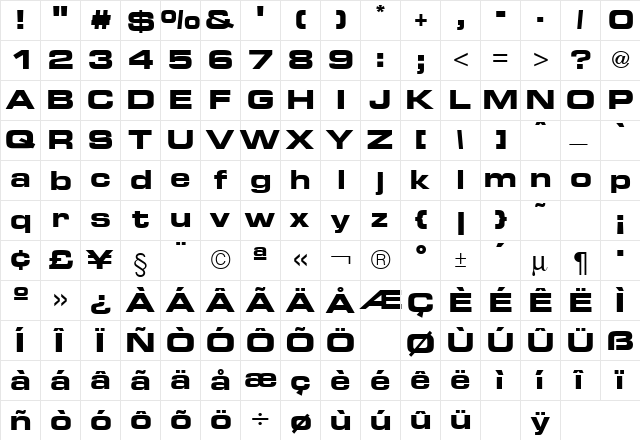
Euro Technic Extended Bold
Design Context for Euro Technic Extended Typeface
Euro Technic Extended has a distinctly futuristic character, with geometric precision and clean angles that feel at home in technology, gaming, and sci-fi contexts. The heavy weight commands attention and anchors typographic hierarchies.
Pro Tip: Use Euro Technic Extended in combination with a neutral sans for body text. Let it define the brand voice in headlines while keeping reading comfortable elsewhere.